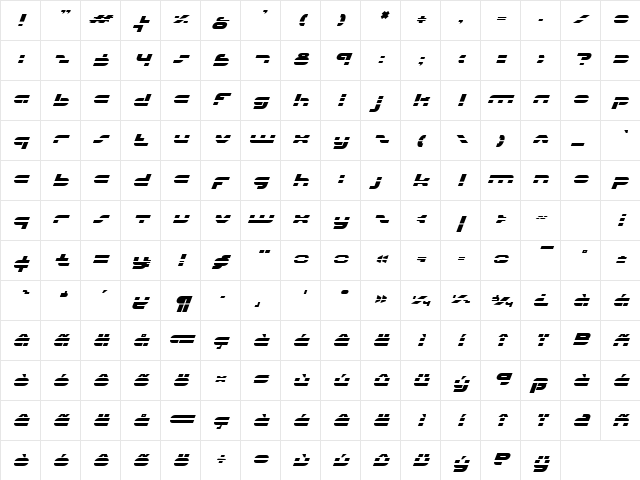
uni-sol laser italic laser italic
Style: laser italic
Design Context for uni-sol laser italic
uni-sol laser italic is a composed and adaptable typeface that performs quietly and consistently across a wide range of design contexts. The slanted form adds forward momentum and visual energy.